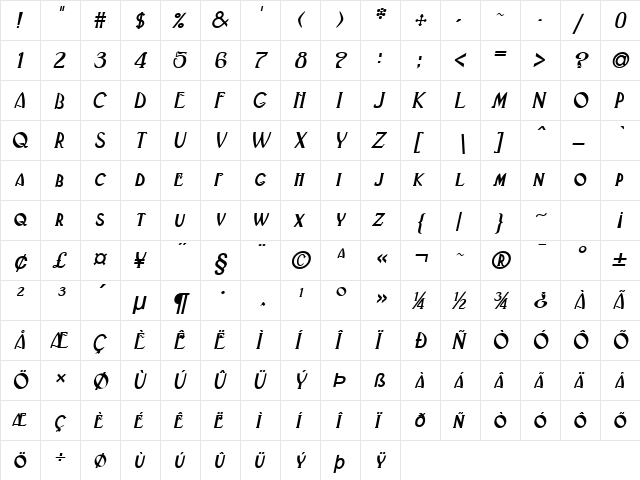
Deco Bold Italic
Design Context for Deco Typeface
Deco takes a measured approach to typography — its balanced proportions and neutral character make it a reliable workhorse for both digital and print work. The slanted form adds forward momentum and visual energy. The heavy weight commands attention and anchors typographic hierarchies.